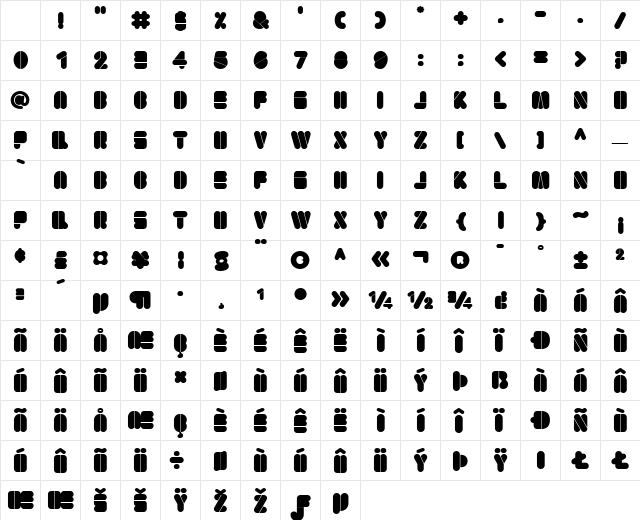
Complete Yuki LinedBold glyph index. Displaying only characters natively supported by Yuki LinedBold font.
Yuki is a composed and adaptable typeface that performs quietly and consistently across a wide range of design contexts. Its bold stroke weight gives it real presence on the page.